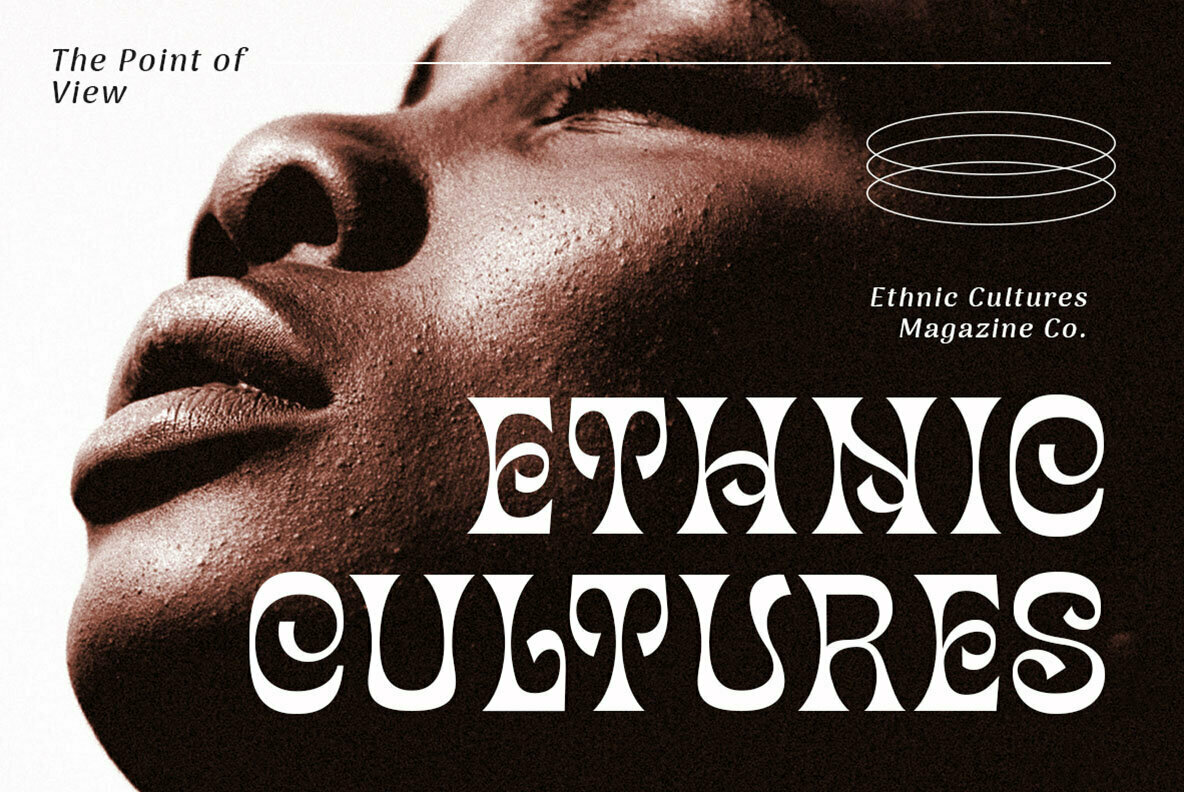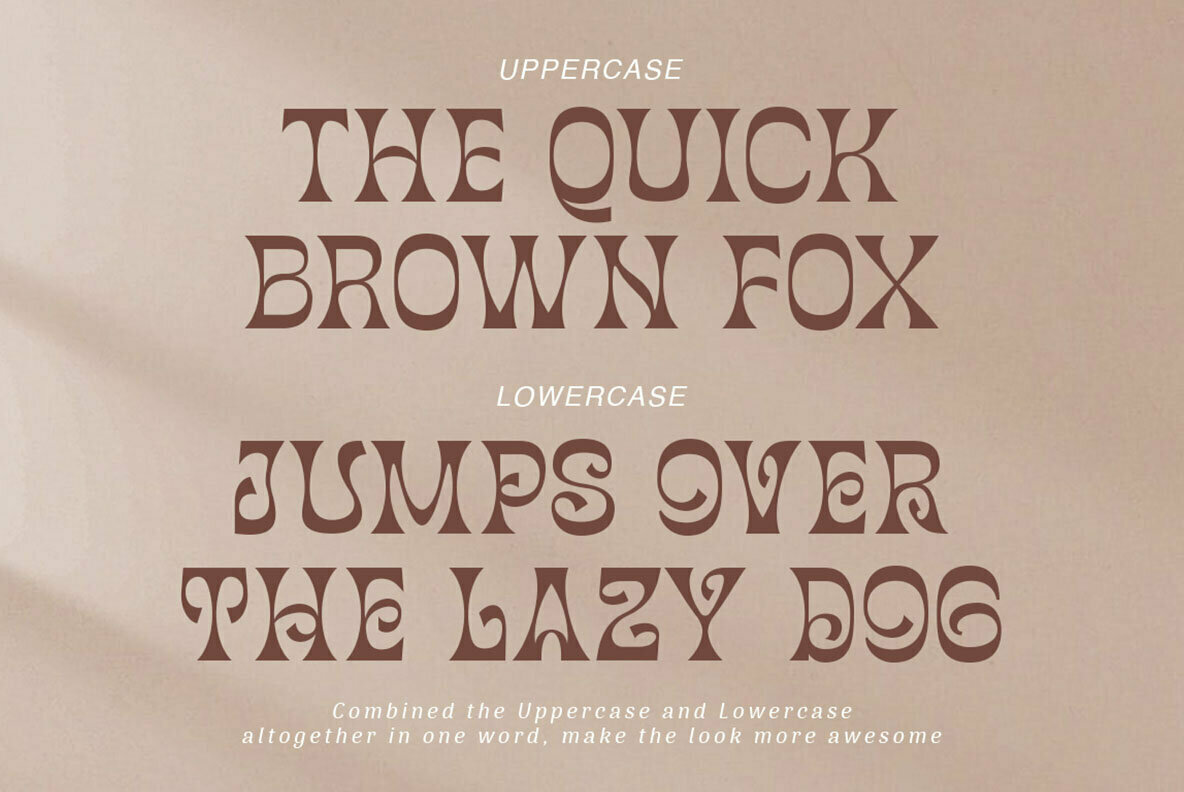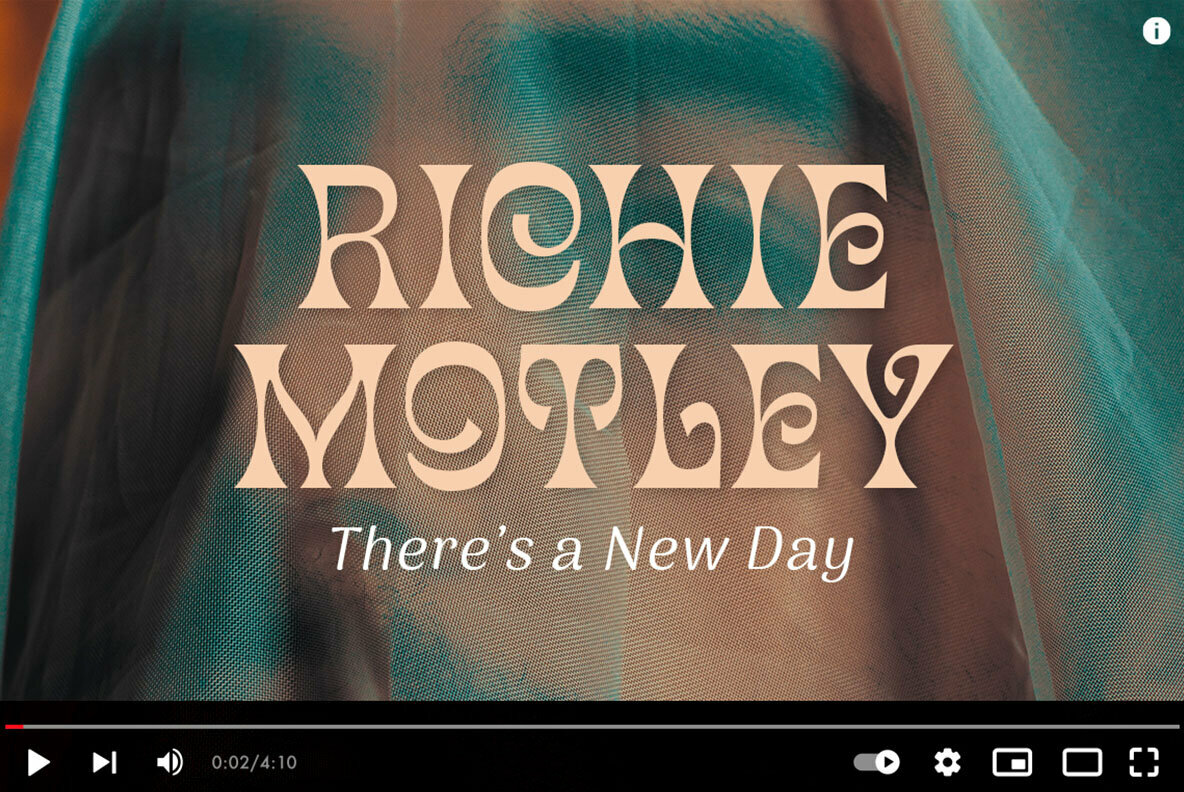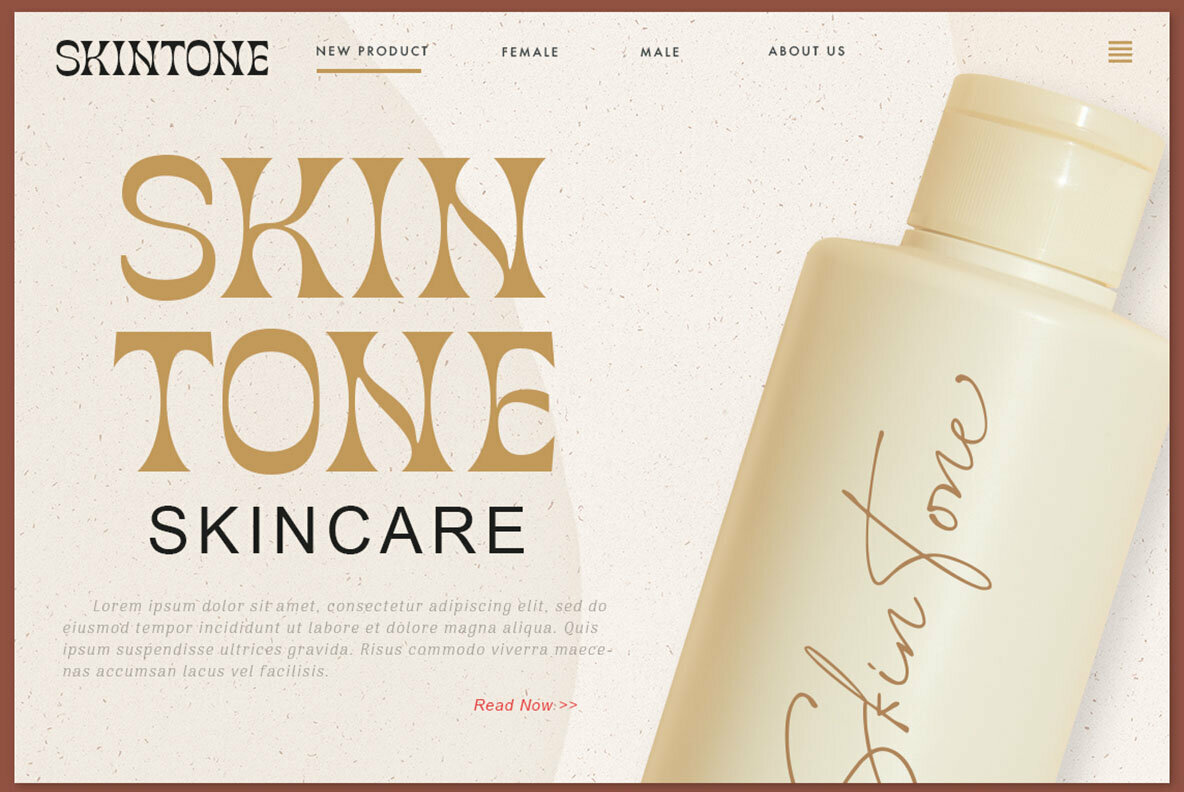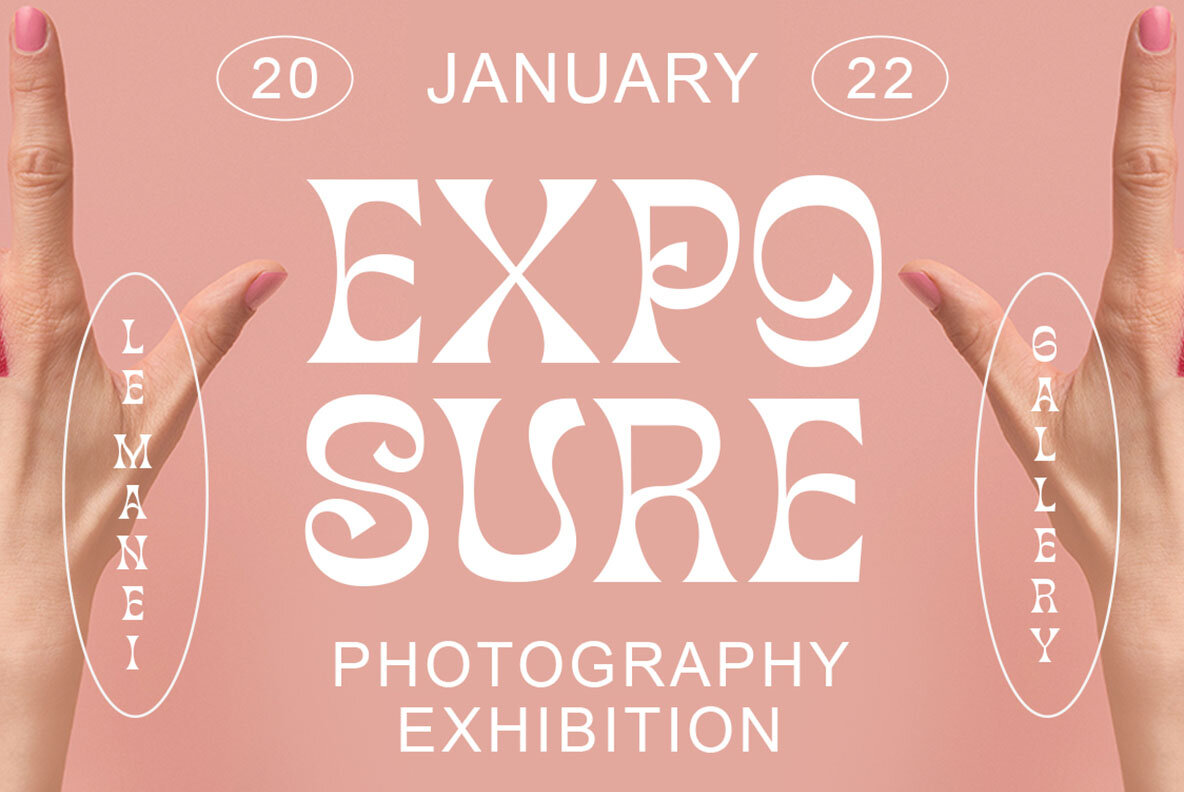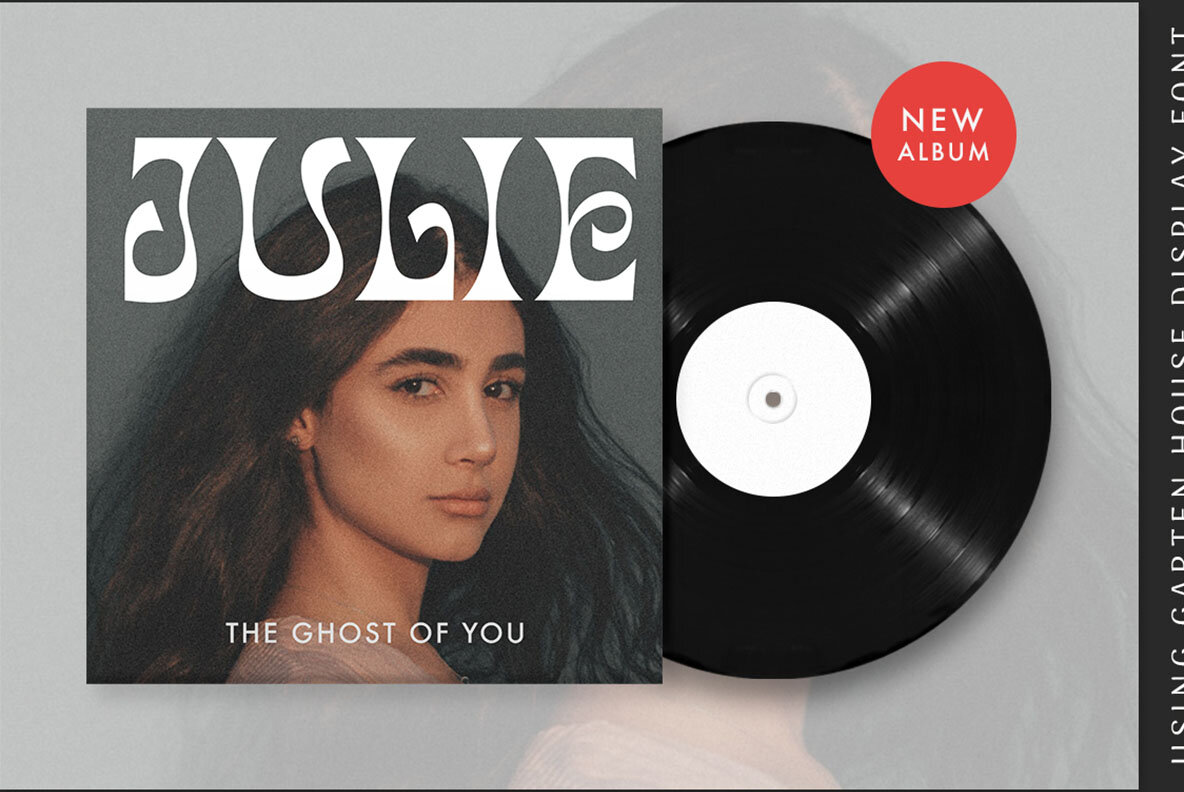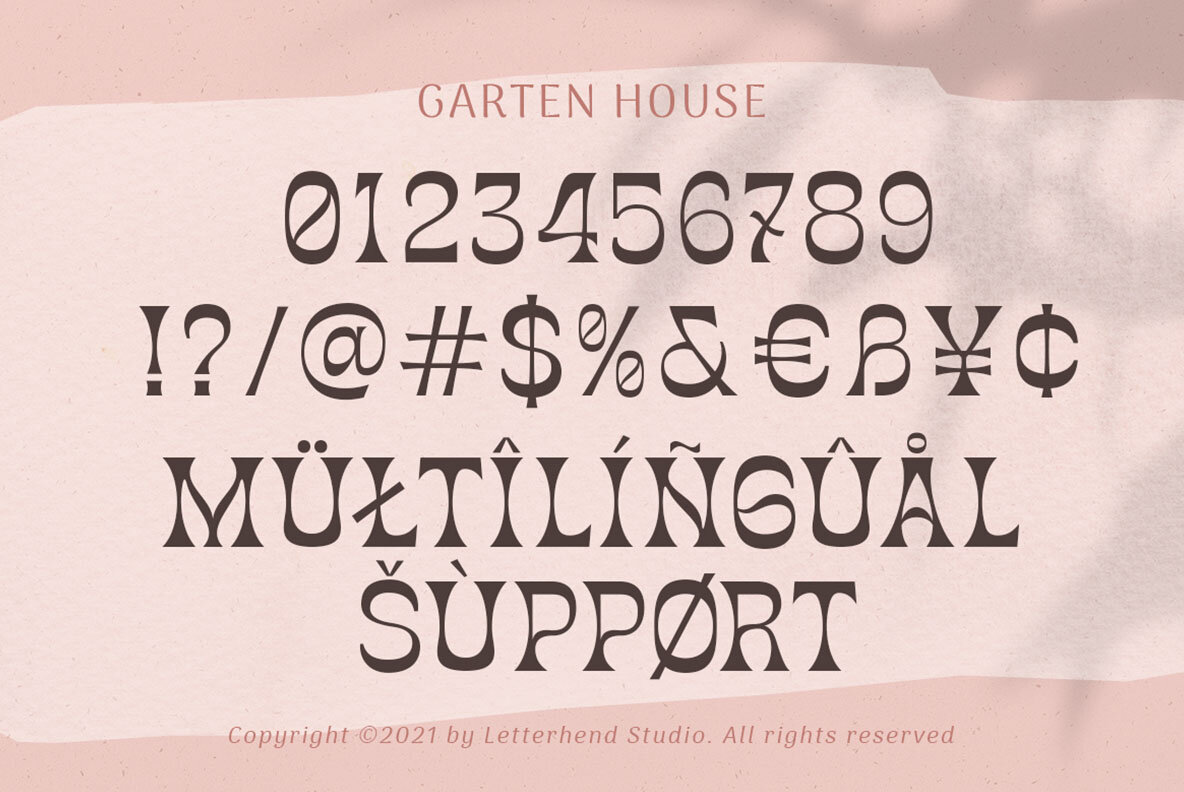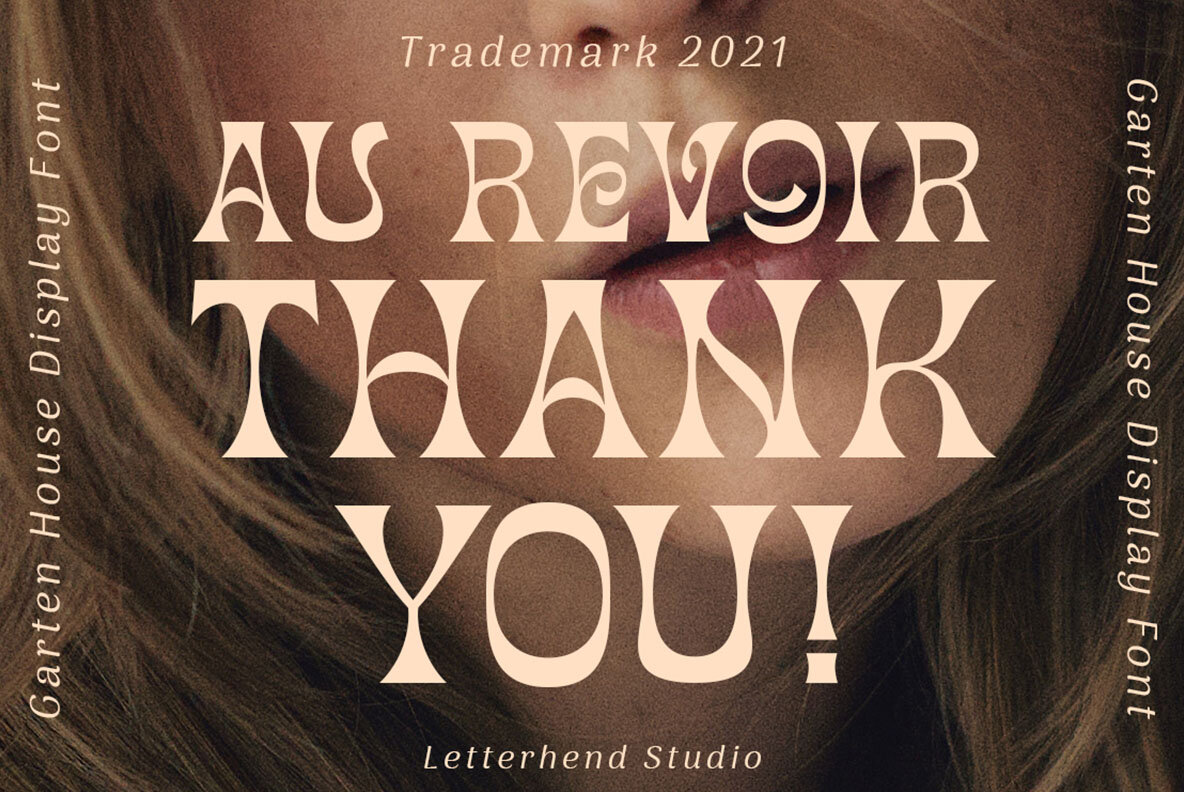
Garten House Font
Garten House Regular
In the world of typography, Garten House emerges as a dynamic high contrast display serif typeface that captures attention and enhances any design. Its unique ligature characters differentiate it from other serif fonts, adding a layer of sophistication suitable for a wide range of applications. Whether you are crafting a logo, designing a headline, or developing formal documents like invitations or books, Garten House proves to be a versatile solution. Perfect for both branding and decorative purposes, it seamlessly integrates into fashion, makeup, packaging, and more, providing a refined touch that is both elegant and assertive.Garten House: A Sophisticated Serif with Distinctive Ligatures